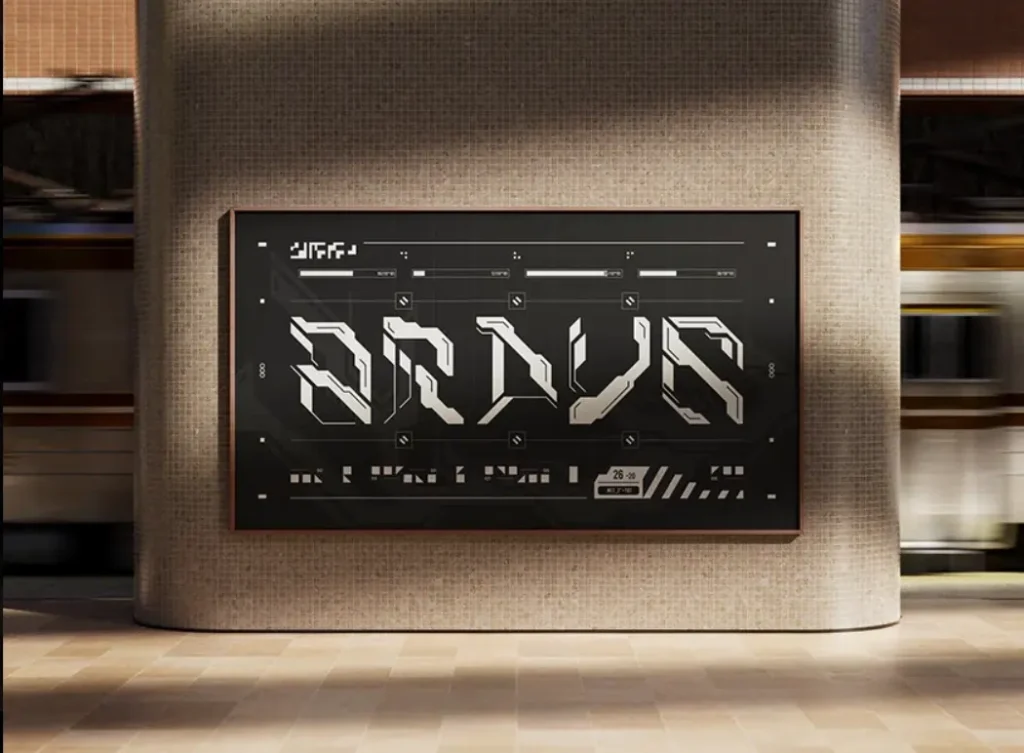
QIHIA is a free futuristic display font for experimental, sci-fi, and modern visual work. The typeface suits bold headlines, posters, branding, and digital interface concepts. The download includes OTF and TTF font files for use across common design workflows.
Key Features
- Futuristic display typeface
- Suitable for experimental visual projects
- Fits sci-fi and modern design styles
- Works well for headlines and posters
- Useful for branding and digital interfaces